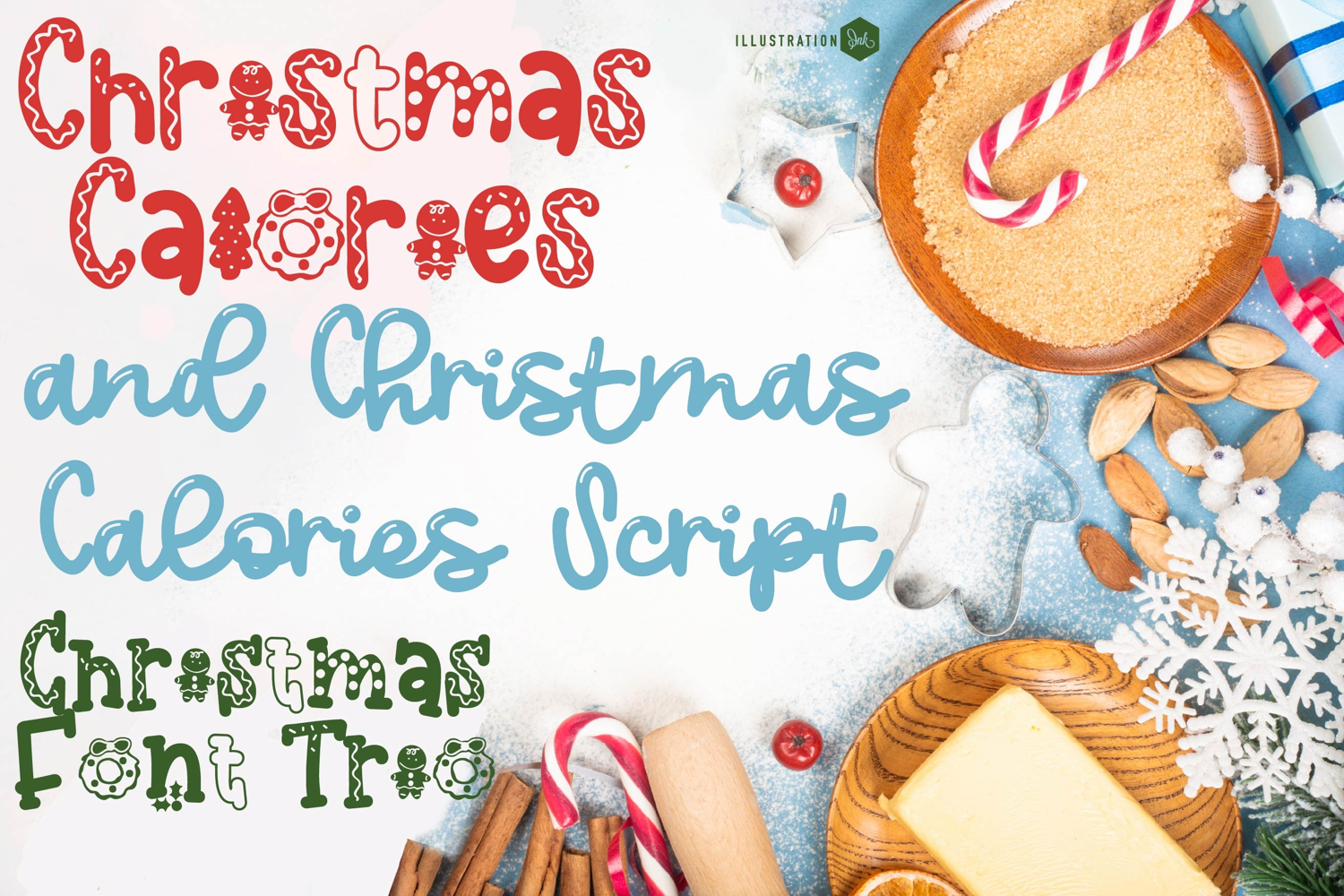
Christmas Calories Font Trio
This hand-crafted font trio combines a hand-crafted font sporting Christmas illustrations, as well as a perfectly coordinated script and serif version. Bonus tag dingbat font included! With all family members combined of the 3 fonts, you get 7 fonts all together!
Hand-crafted fonts can be either formal or informal, and they can be used for a variety of purposes. Some of the characteristics of handwritten fonts include: The letters are not perfectly uniform in size or shape. There may be slight variations in the spacing between letters and words. The font may have a "wiggly" or "squiggly" appearance. The font may be difficult to read at small sizes. Handwritten fonts can be a great way to add a casual touch to your designs. They can also be used to create a sense of nostalgia or whimsy. However, it is important to choose a handwritten font that is appropriate for the project you are working on. A formal handwritten font may not be appropriate for a casual invitation, while an informal handwritten font may not be appropriate for a corporate document.
• The letters are not perfectly uniform in size or shape.
• There may be slight variations in the spacing between letters and words.
• The font may have a "wiggly" or "squiggly" appearance.
• The font may be difficult to read at small sizes.